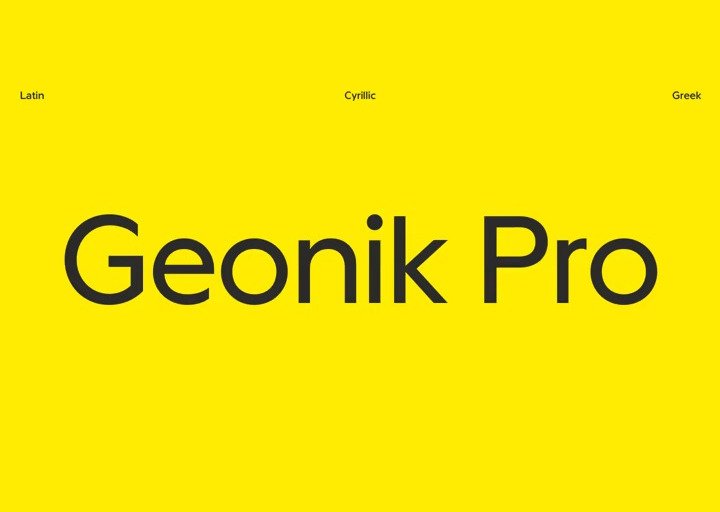
Geonik Pro Font
Geonik Pro is a modern and Minimal Sans Serif typeface, Geonik Pro can keep minimalism at its level best and is a perfect choice for Creative and Classic Typography Designs. It comes in 10 weights, 20 uprights and its matching obliques,
so you can use them to your heart’s content, in each of which there are more than 1202+ glyphs. Geonik Pro comprises 20 fonts, consisting of three distinct optical sizes: Display. Each one has been carefully tailored to the demands of its size.
The larger Display versions are drawn to show off the subtlety of Geonik Pro and spaced with headlines in mind, while the Text sizes focus on legibility, using robust strokes and comfortably loose spaces. In the typeface, each weight includes extended language support, fractions, tabular figures, arrows, ligatures and more.